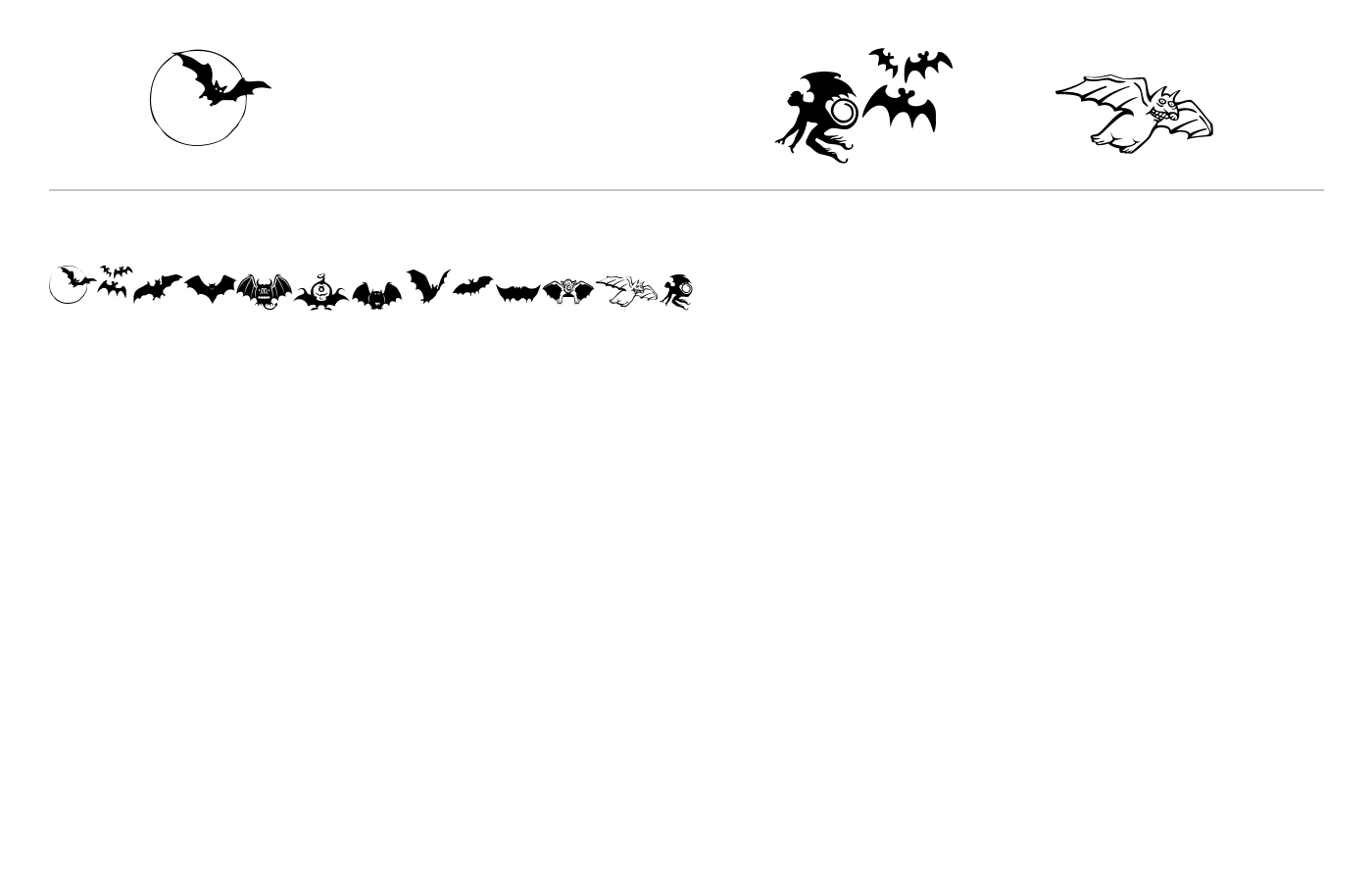
Bats-Symbols Font is a decorative symbol typeface featuring various bat and spooky-themed illustrations in solid black silhouettes. Perfect for Halloween designs or playful, eerie projects, it offers unique graphics rather than traditional letters, making it ideal for adding a fun, dark atmosphere to invitations, posters, or seasonal branding. This font brings a whimsical yet slightly spooky vibe to any creative work needing a touch of mystery and charm.
Bats-Symbols Font
About Bats-Symbols Font